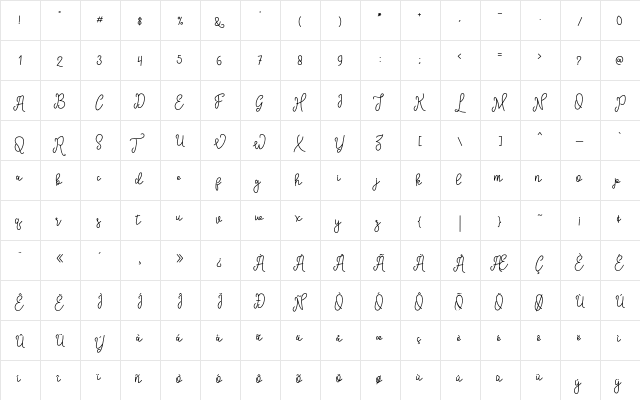
Sinyak Script Regular
| Foundry | Ferdiansyah_ijemrockart_IJ Letterplay |
| Designer | Ferdiansyah_ijemrockart_IJ Letterplay |
Design Context for Sinyak Script Typeface
Sinyak Script flows with the natural rhythm of handwritten lettering, making it ideal for designs that call for warmth and personal expression.
Font Pairing: Combine Sinyak Script with a simple geometric sans for maximum contrast — the tension between flowing curves and clean structure is a classic typographic pairing.
Pro Tip: Use Sinyak Script for short runs of text — names, titles, or taglines. Extended body copy in script faces tires the eye quickly.